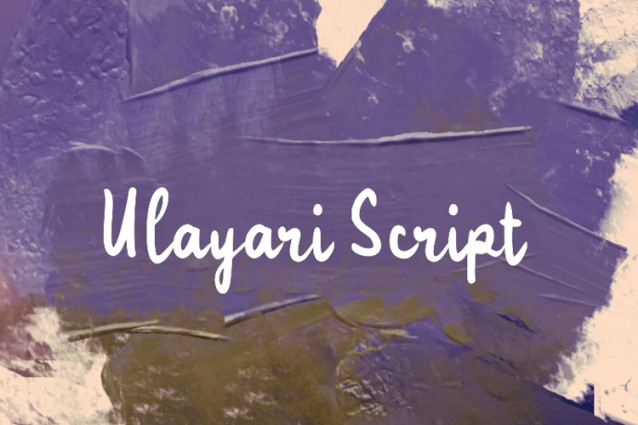
Ulayari Script Font
Ulayari Script Font is a sweet and friendly handwritten font. Its natural and unique style makes it incredibly fitting to a large pool of designs. The only limit is your imagination!